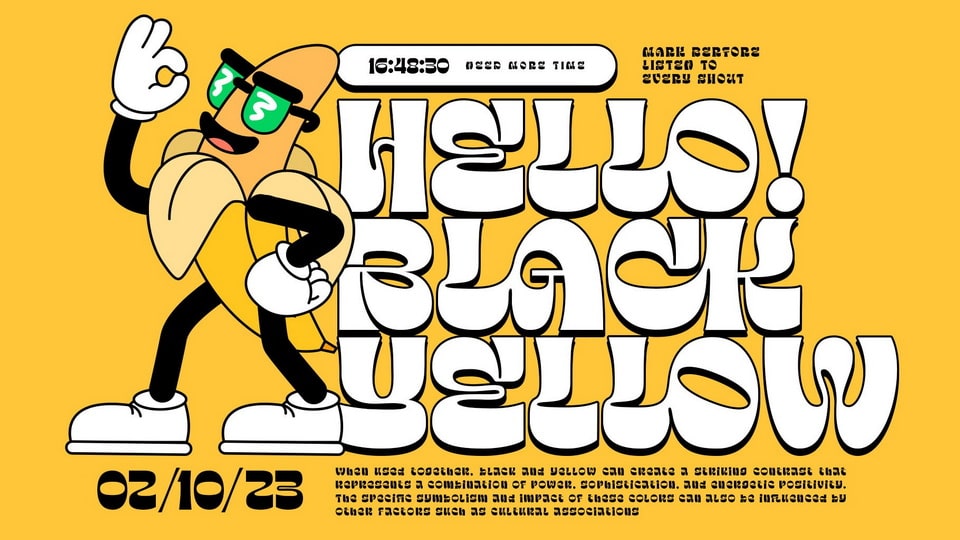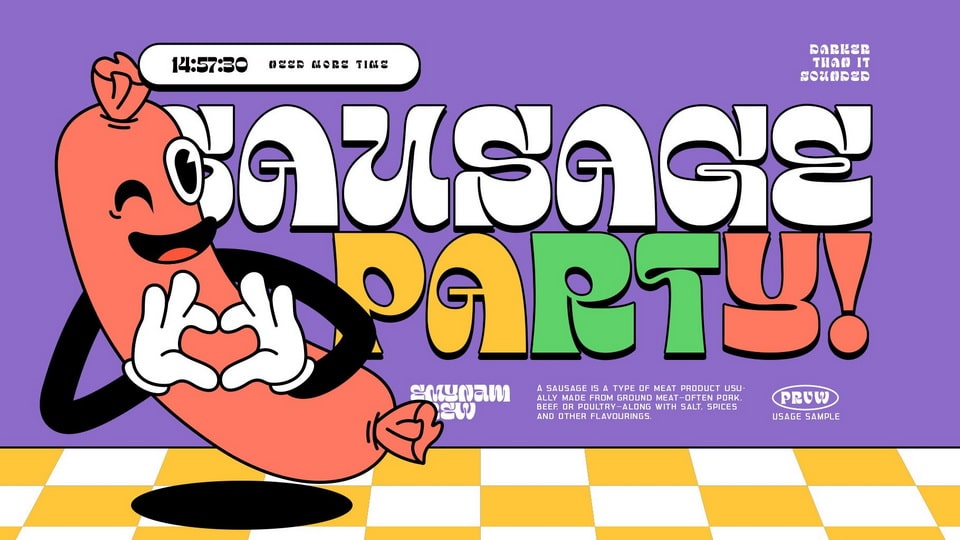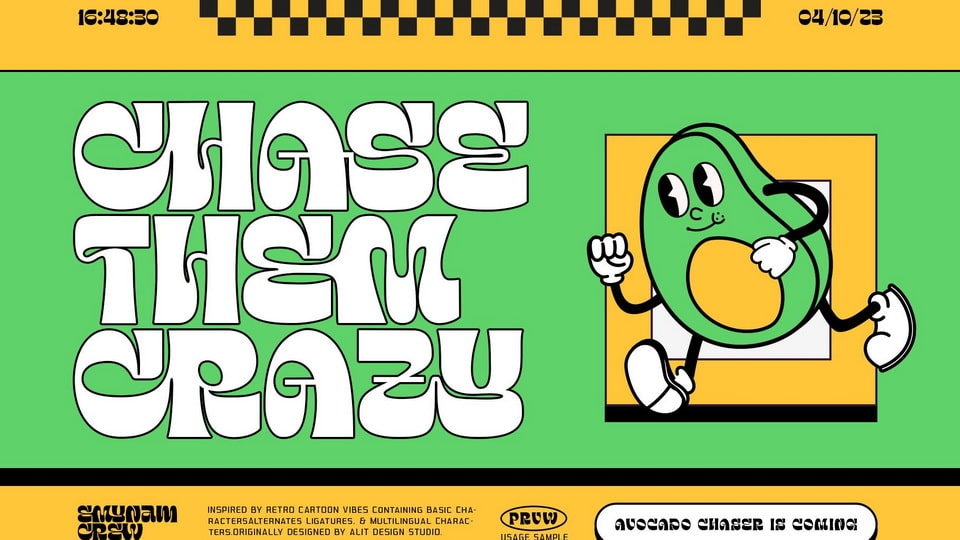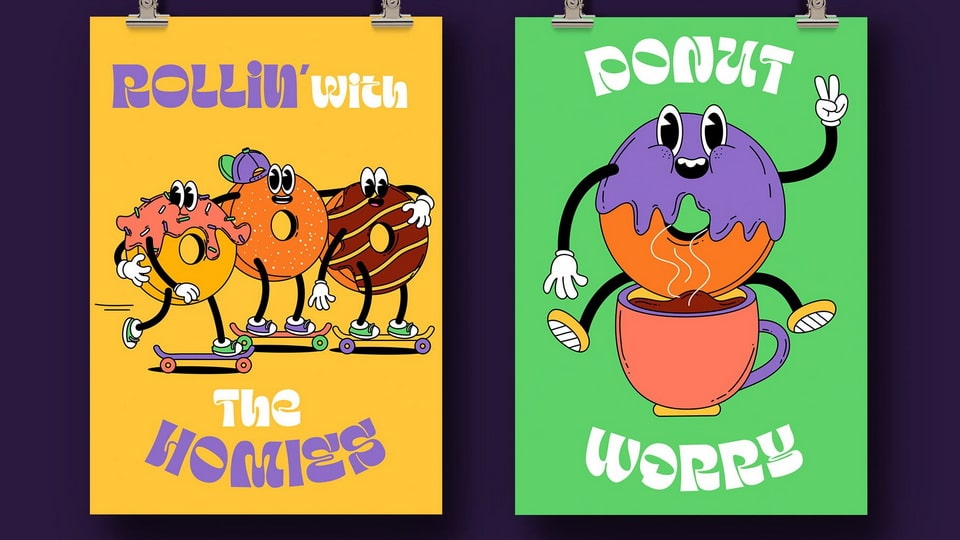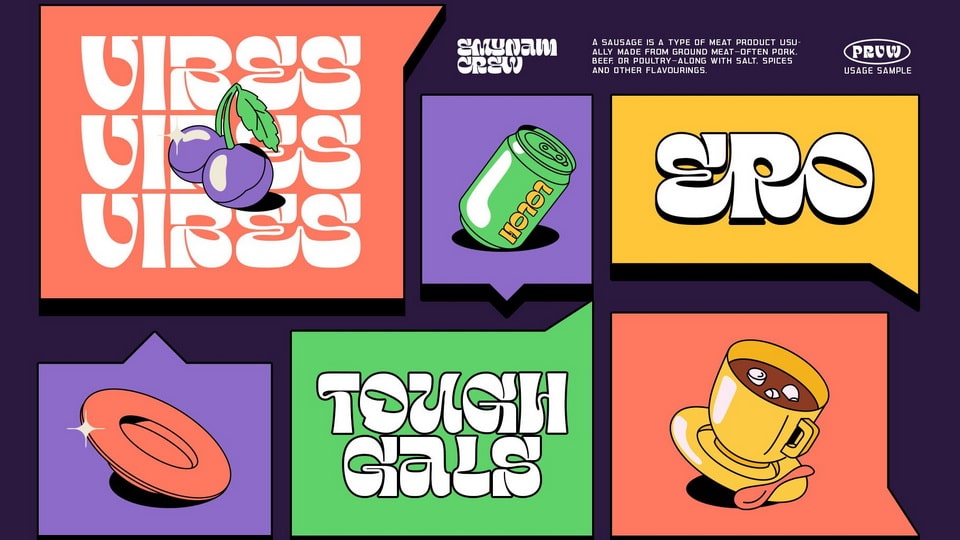
Emynam Crew is a funky display typeface, that will bringing back the retro vibes of yesteryears with a modern twist. With its unique blend of style, flair, and a whopping 705 glyphs, this typeface is a must-have for anyone looking to make a statement.
Emynam Crew captures the essence of the 70s and 80s with its bold, funky letterforms. It’s like a blast from the past, perfect for adding a touch of nostalgia to your designs.
Make a bold statement with Emynam Crew as your headline or display font. Its eye-catching style ensures that your message won’t go unnoticed. Whether you’re working on a retro-themed project or just want to infuse a touch of nostalgia into your designs, Emynam Crew is your go-to choice.